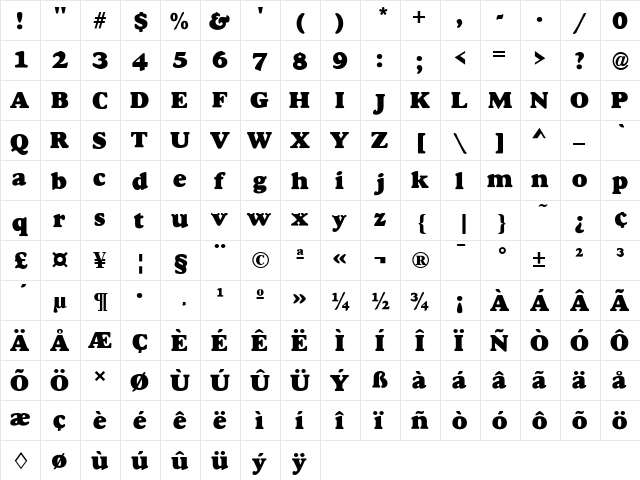
Dover Heavy Regular
Design Context for Dover Heavy Typeface
Dover Heavy is a composed and adaptable typeface that performs quietly and consistently across a wide range of design contexts.